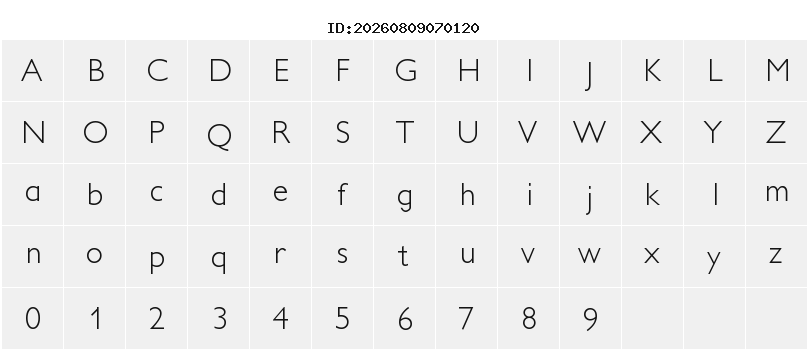
PetitaLight Preview
• Font Name: PetitaLight
• Version: 1.1 2005-05-03
About PetitaLight.ttf
PetitaLight.ttf is a modern, elegant sans-serif font designed for ultimate readability and visual harmony. Perfect for branding, headlines, web design, and print materials.